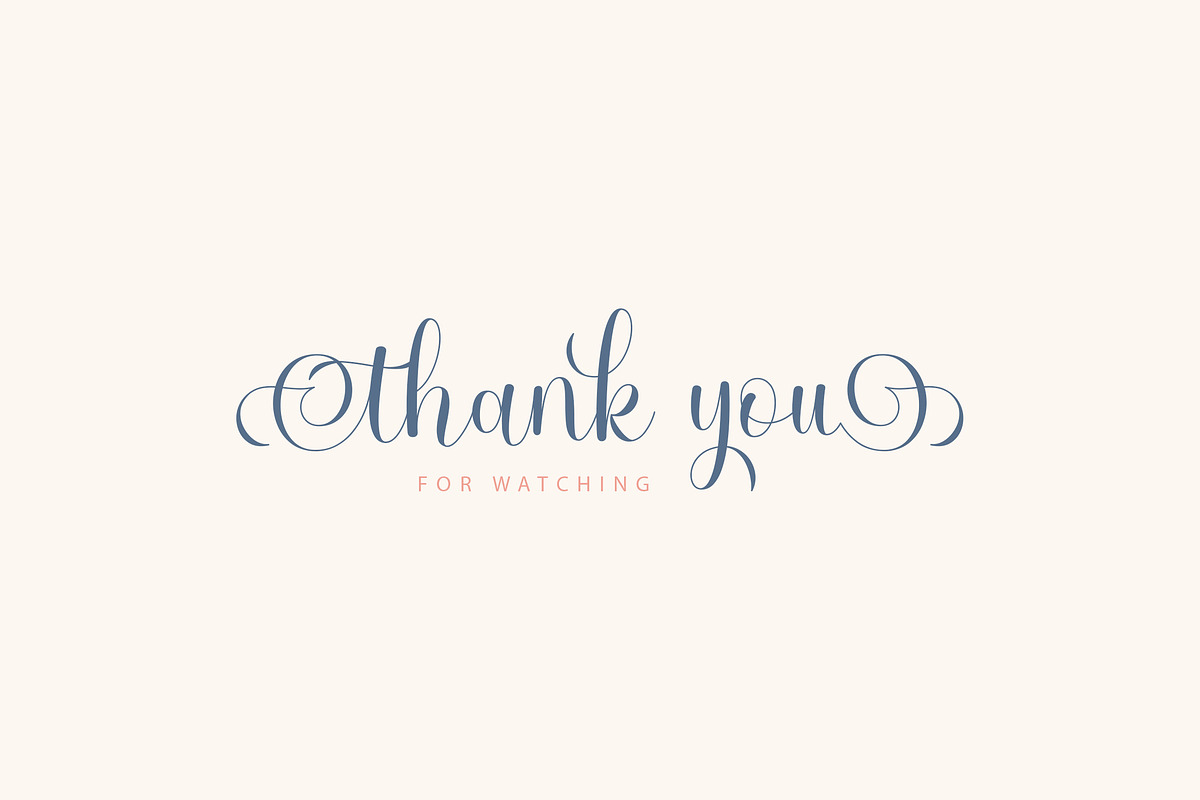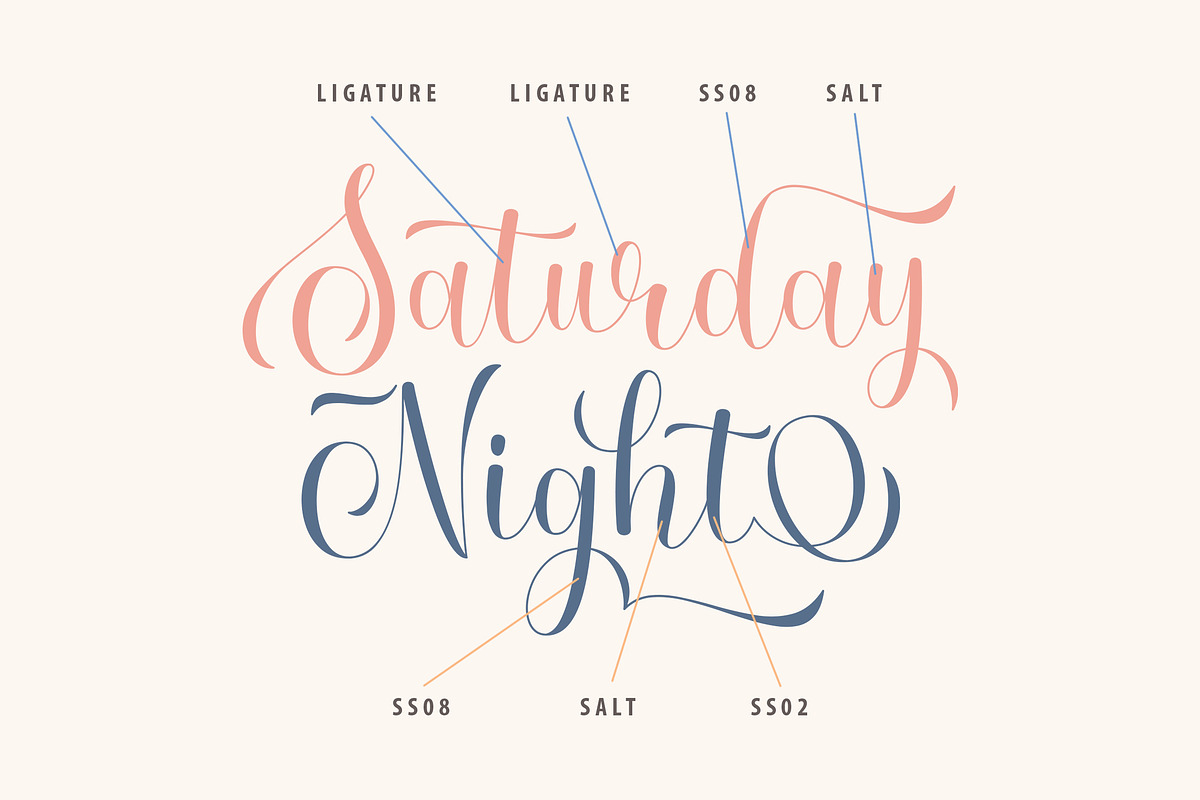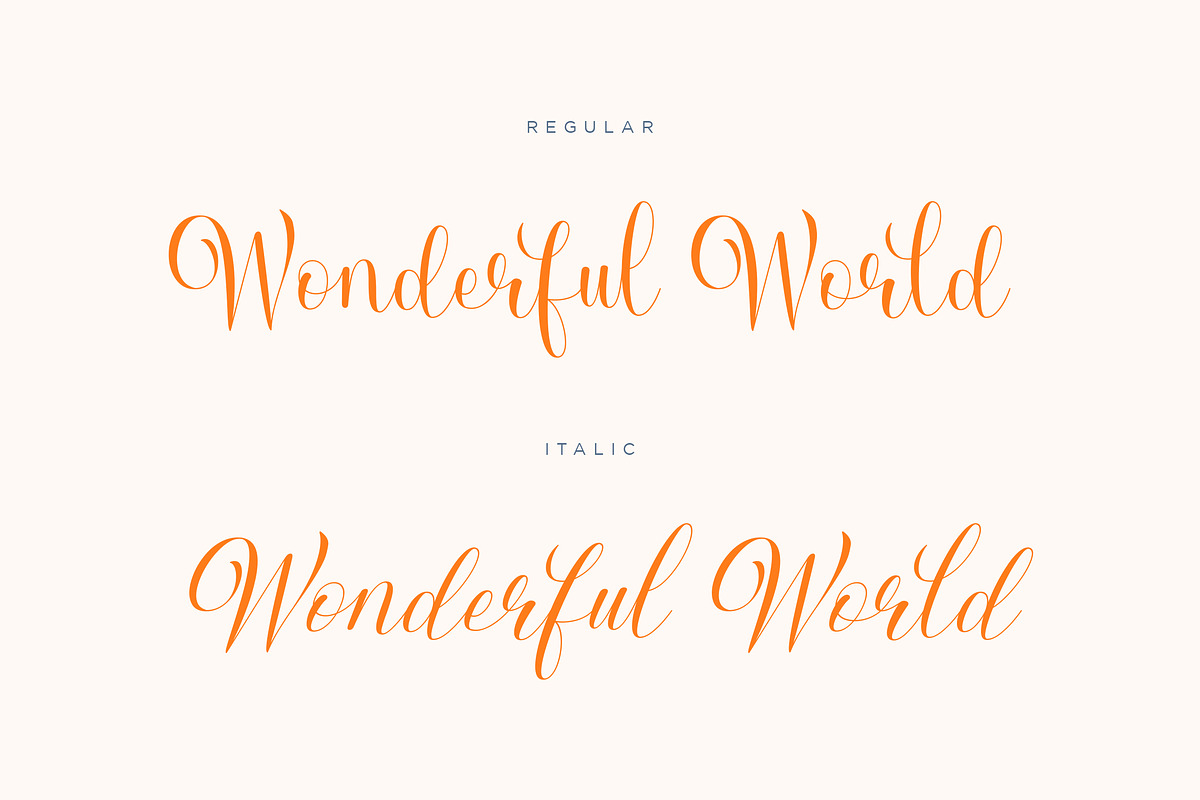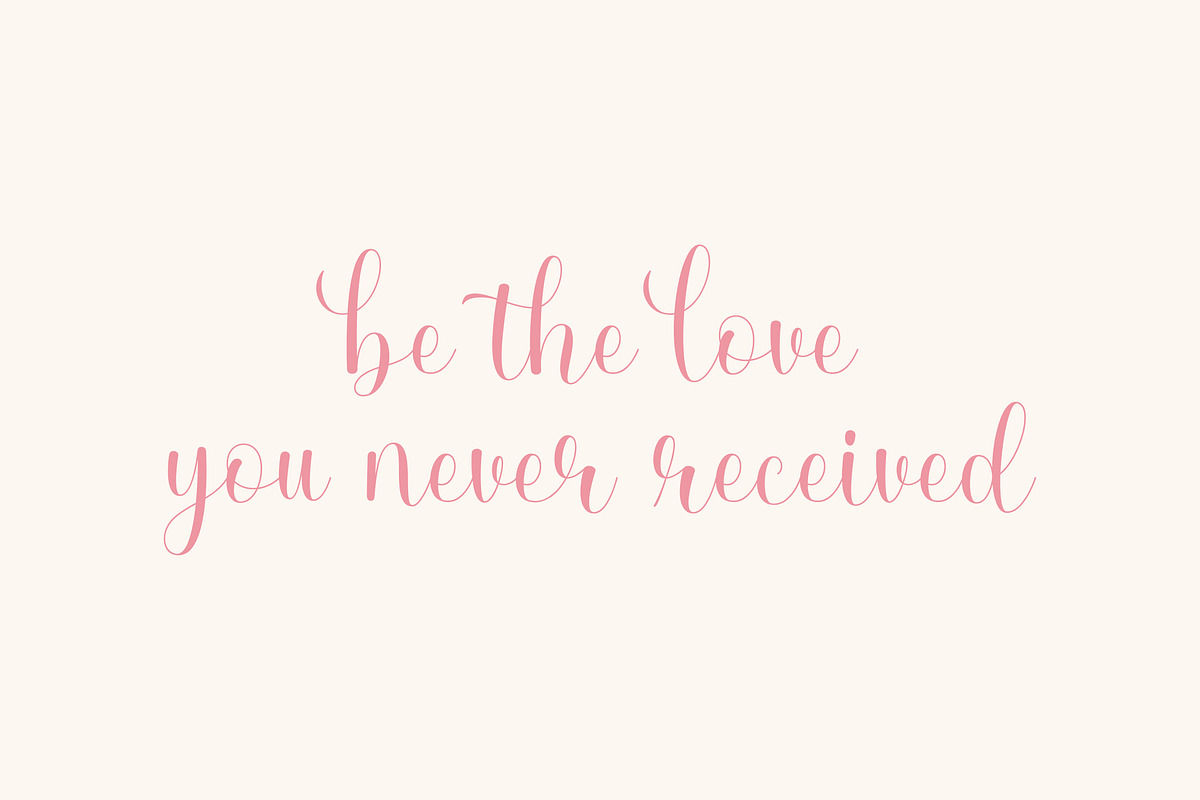
Lucky Sunshine - Modern Script
Lucky Sunshine designed as modern calligraphy form. it have more than 40++ ligature. Have Salt, SS01 - SS07, open type feature and support for international languages.
Lucky Sunshine is perfect for branding projects, logo, wedding designs, social media posts, advertisements, product packaging, product designs, label, photography, watermark, invitation, stationery and any projects that need modern calligraphy taste.
- Standard Glyphs
- 40++ Ligatures
- Stylistic Alternative
- Stylistic Set 1-7
- Fonts include multilingual support